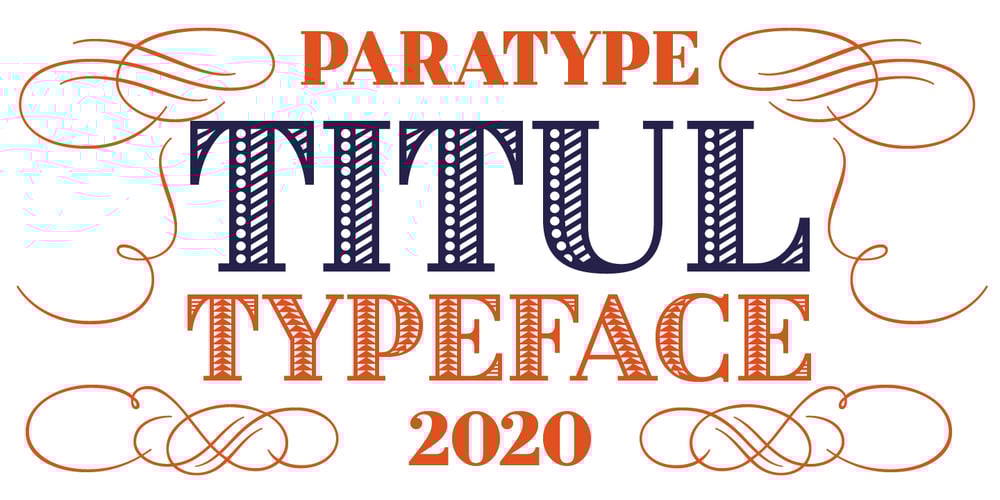
Titul Font Family was designed by Isabella Chaeva and published by ParaType. Titul contains 16 styles and family package options. Titul is a display typeface with strong historical connotations. It is based on a series of stylish lettering for book covers, designed by Russian graphic artist Alexander Leo in the 1920s. The historical reference for him was book design of the 1st half of the 19th century. Type family consists of four ornamented and three basic styles: one solid, one inline and one striped. All seven faces have corresponding oblique styles. Also, there is a beautiful vignette font and a style for constructing ornamental borders. Titul suits best for vintage spirited typography, from the 19th to early 20th century. It is perfect for book covers, theater posters, packaging and greeting cards. Typeface was created by Isabella Chaeva and released by Paratype in 2020.